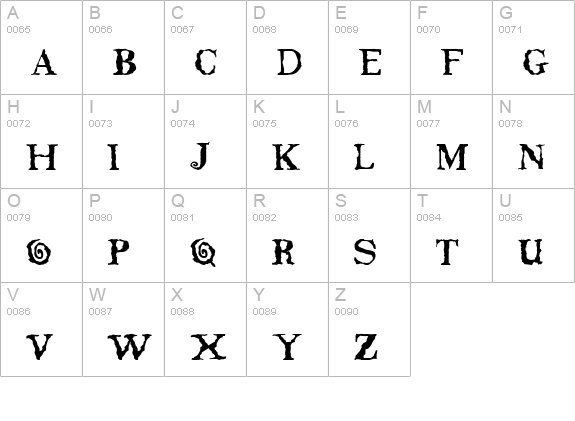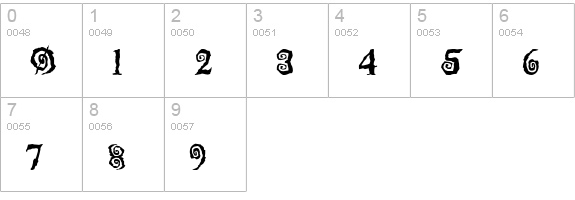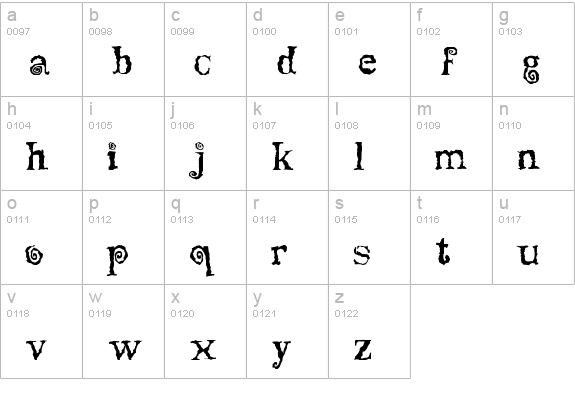
Swirl font is a whimsical and elegant typeface that adds a touch of sophistication to any design project. Its flowing curves and intricate swirls will captivate the eye and create a sense of movement on the page. Perfect for invitations, posters, and branding materials, Swirl font exudes a sense of grace and charm. Best of all, Swirl font is available for free download at FontsMarket.com. Whether you're a designer looking to add a unique flair to your work or a DIY enthusiast wanting to elevate your personal projects, Swirl font is the perfect choice. Download it today and let your creativity swirl to life!